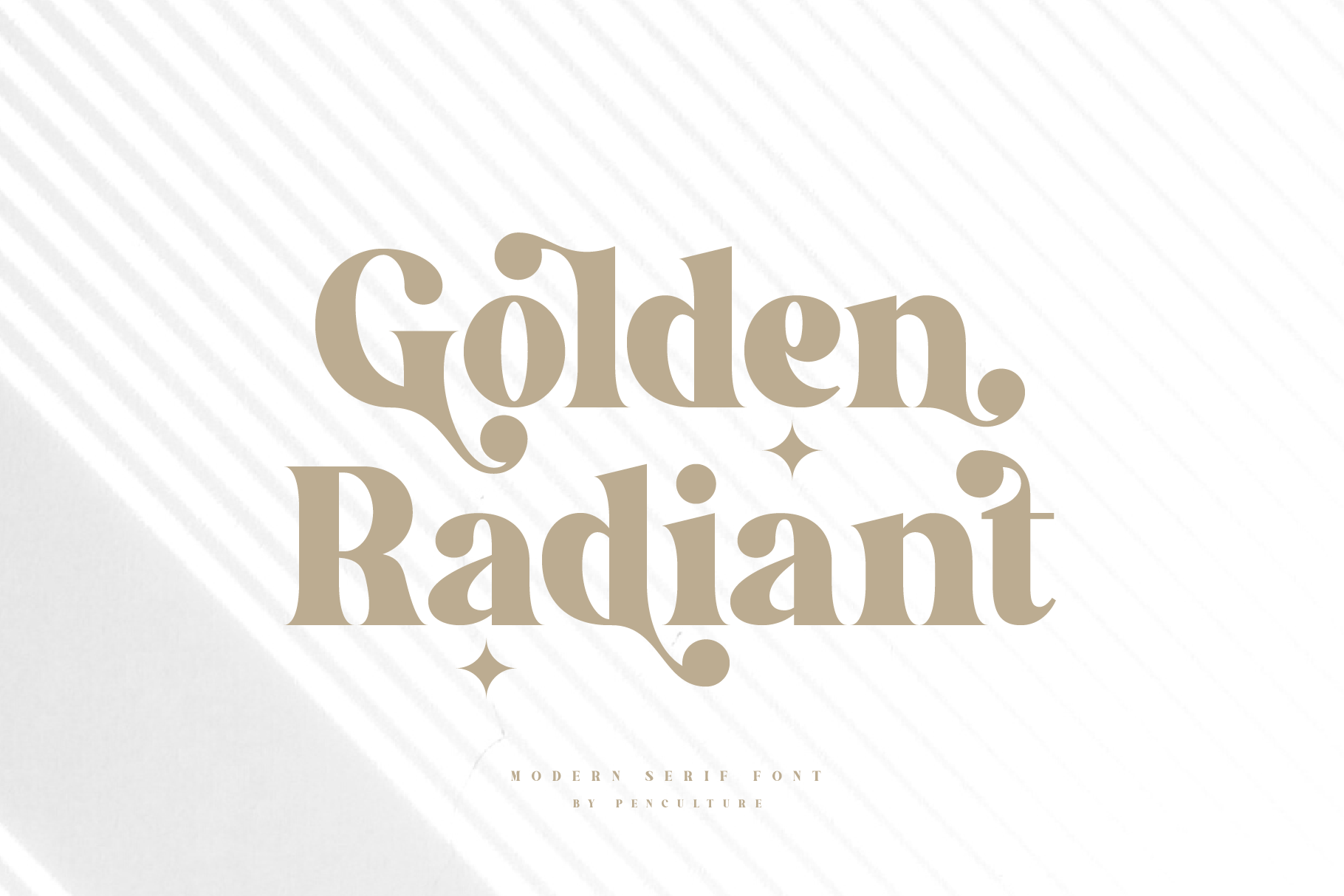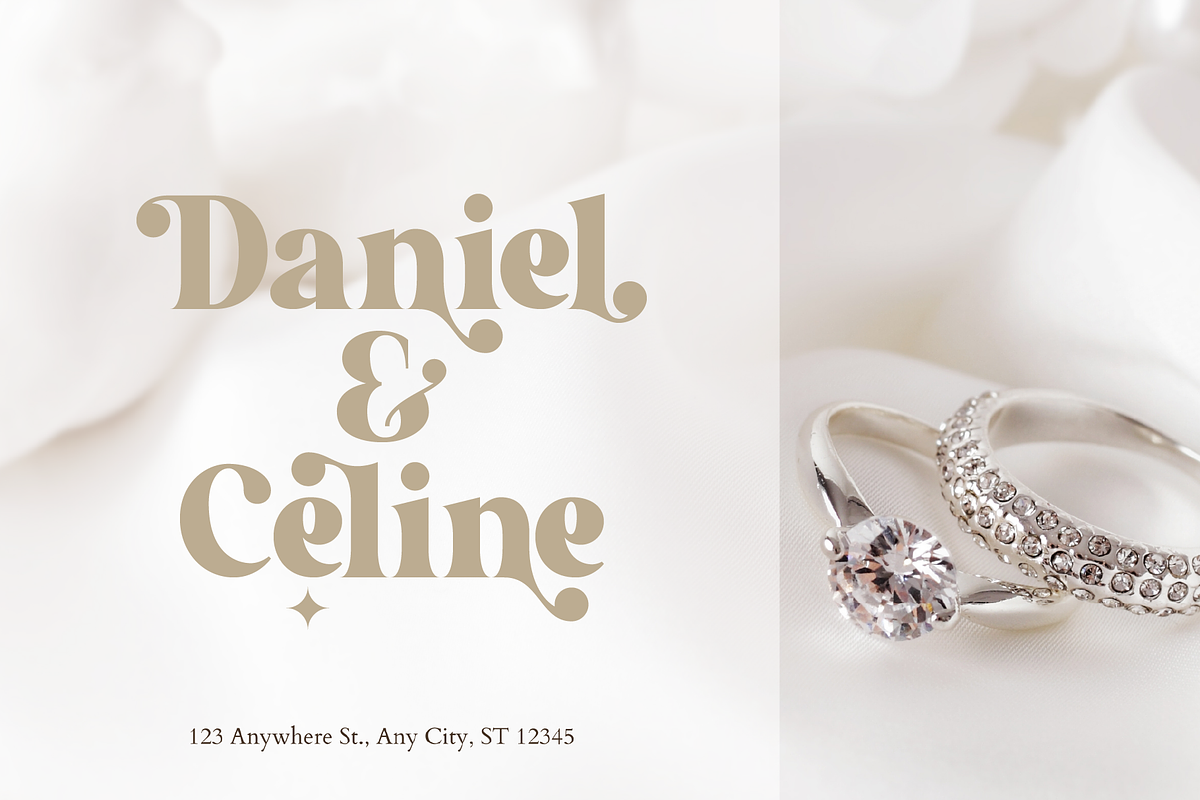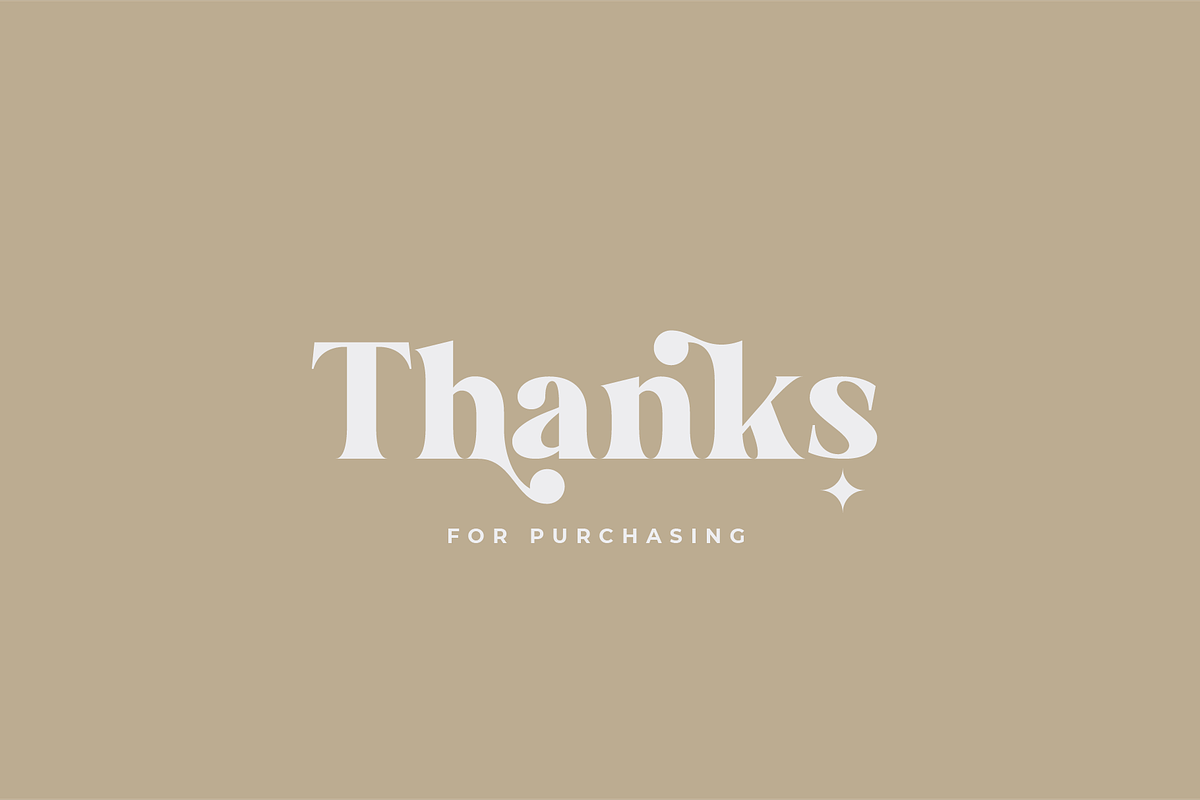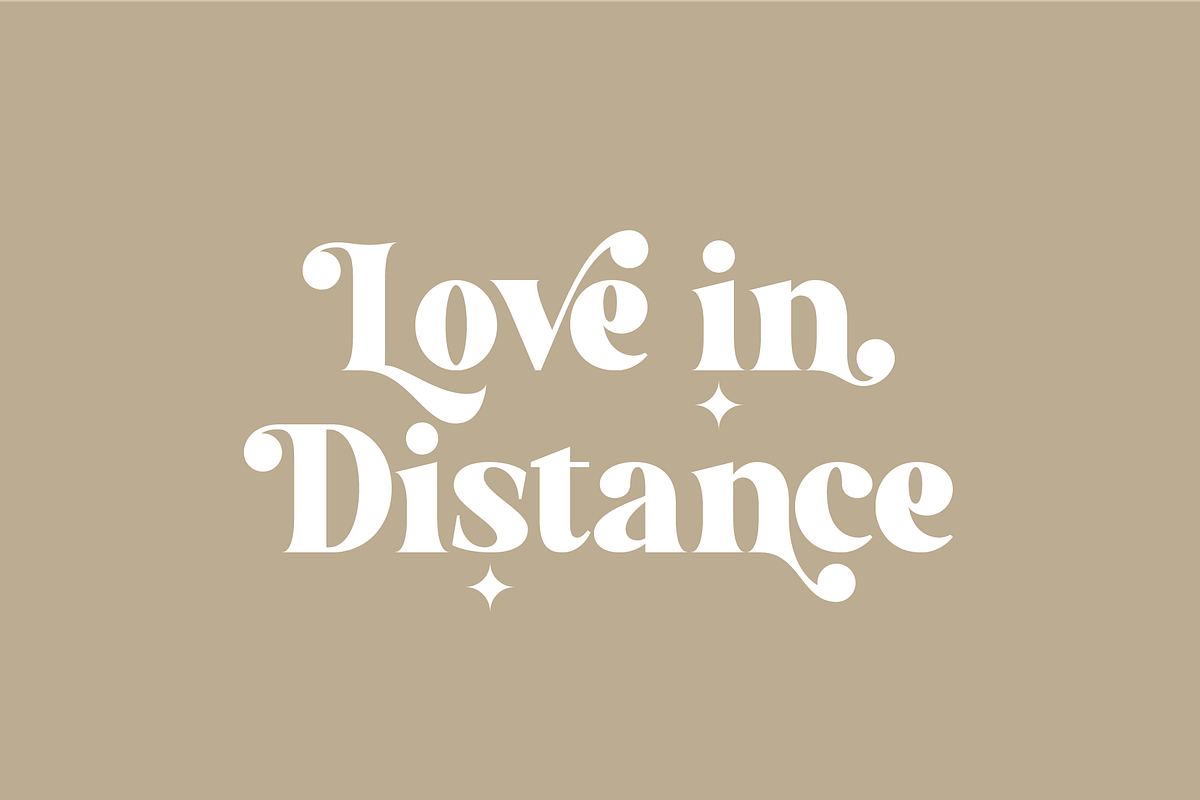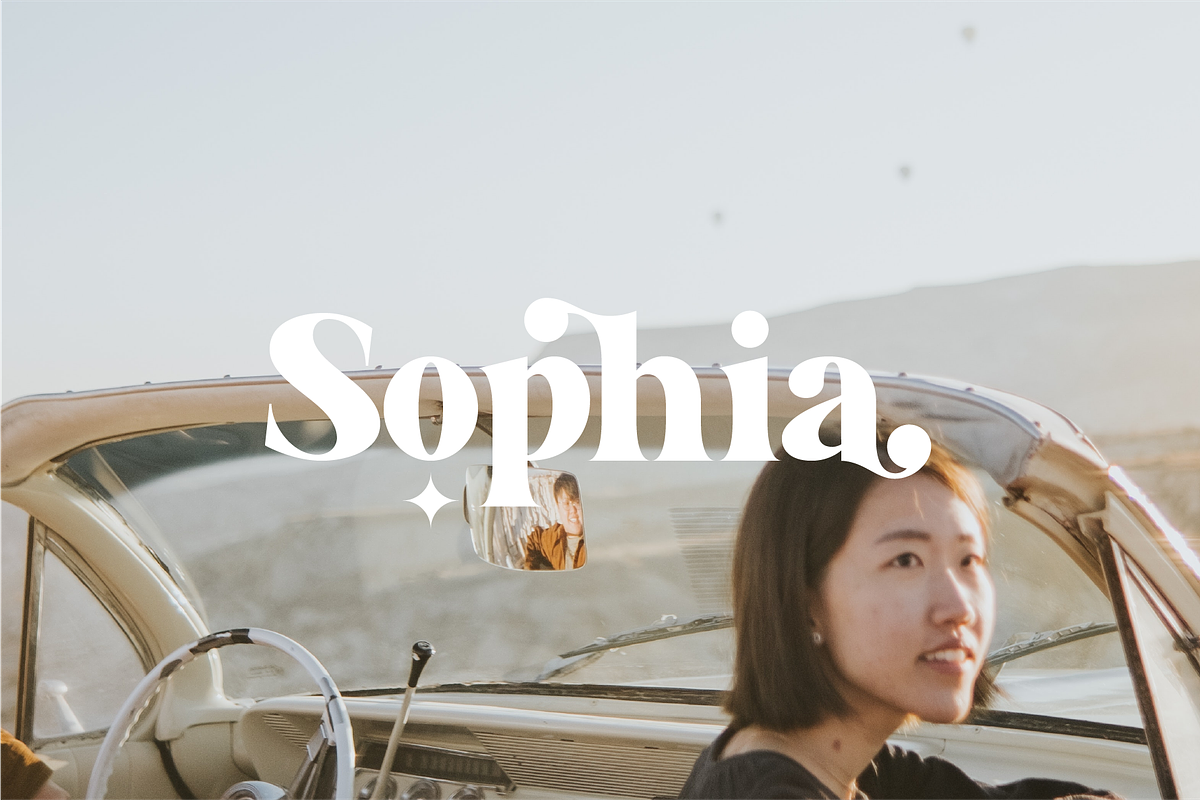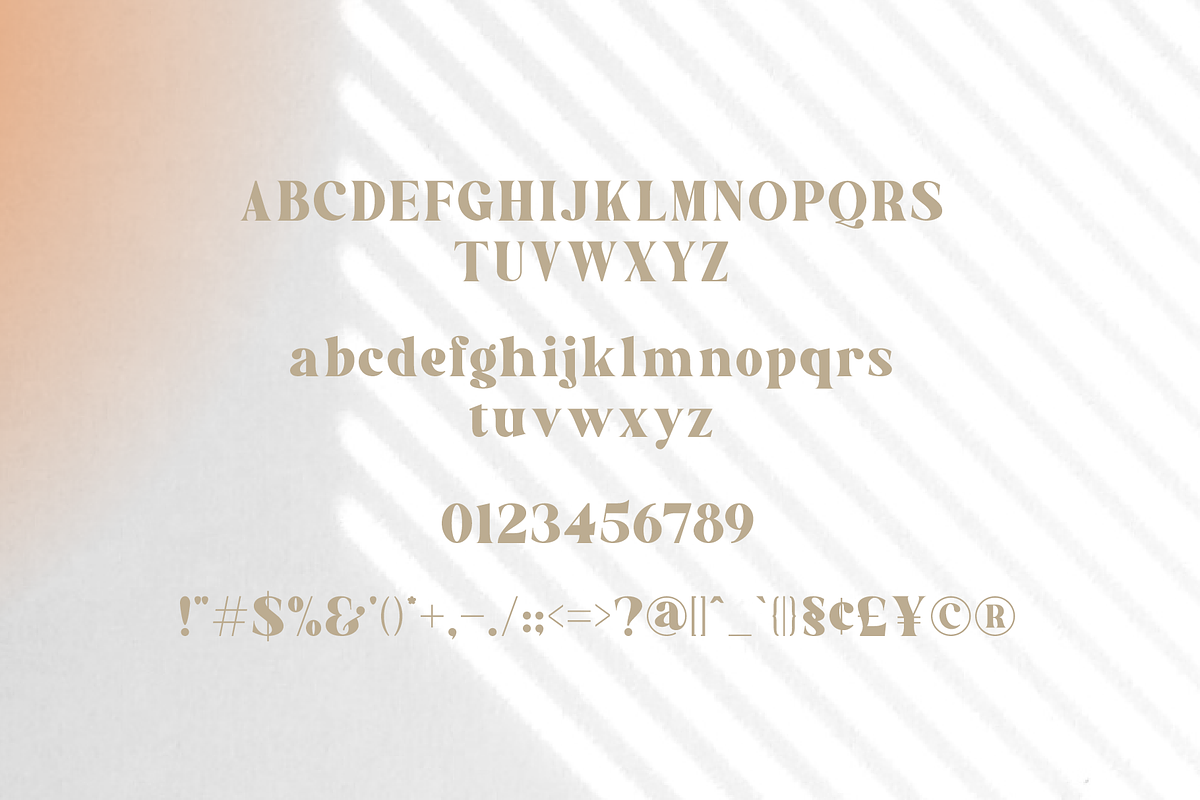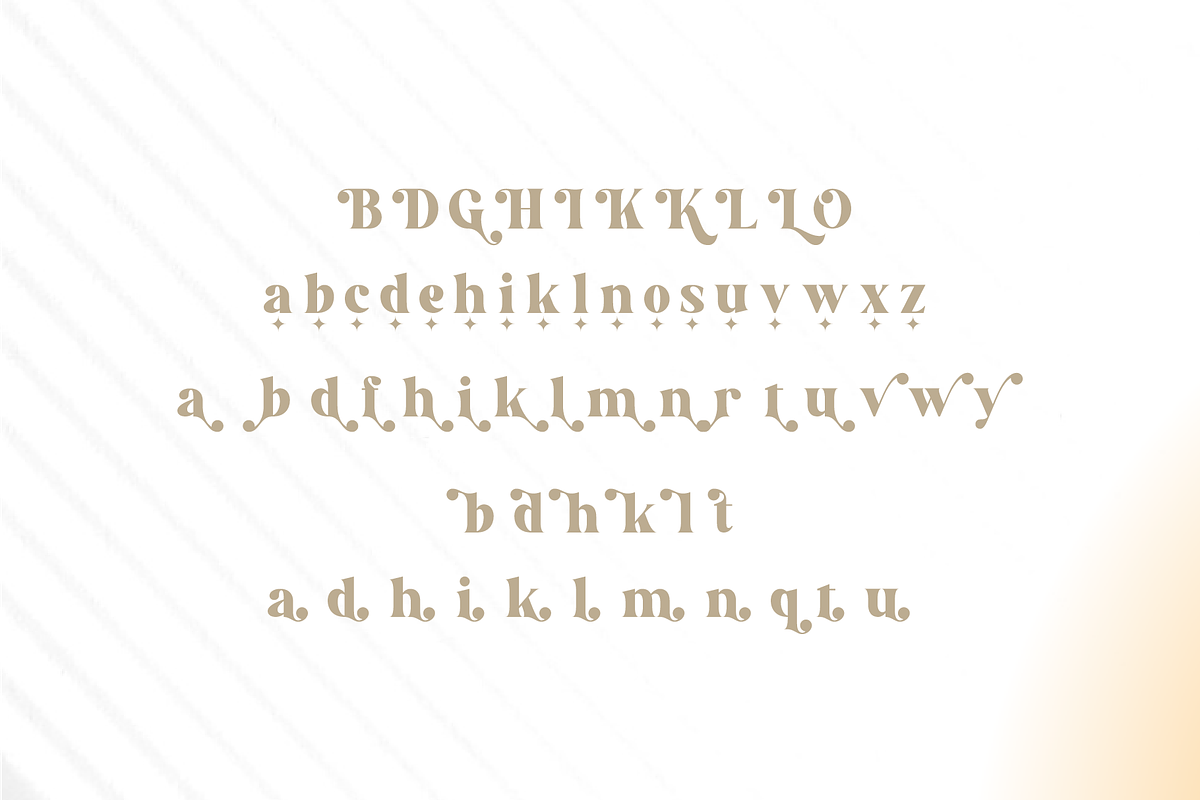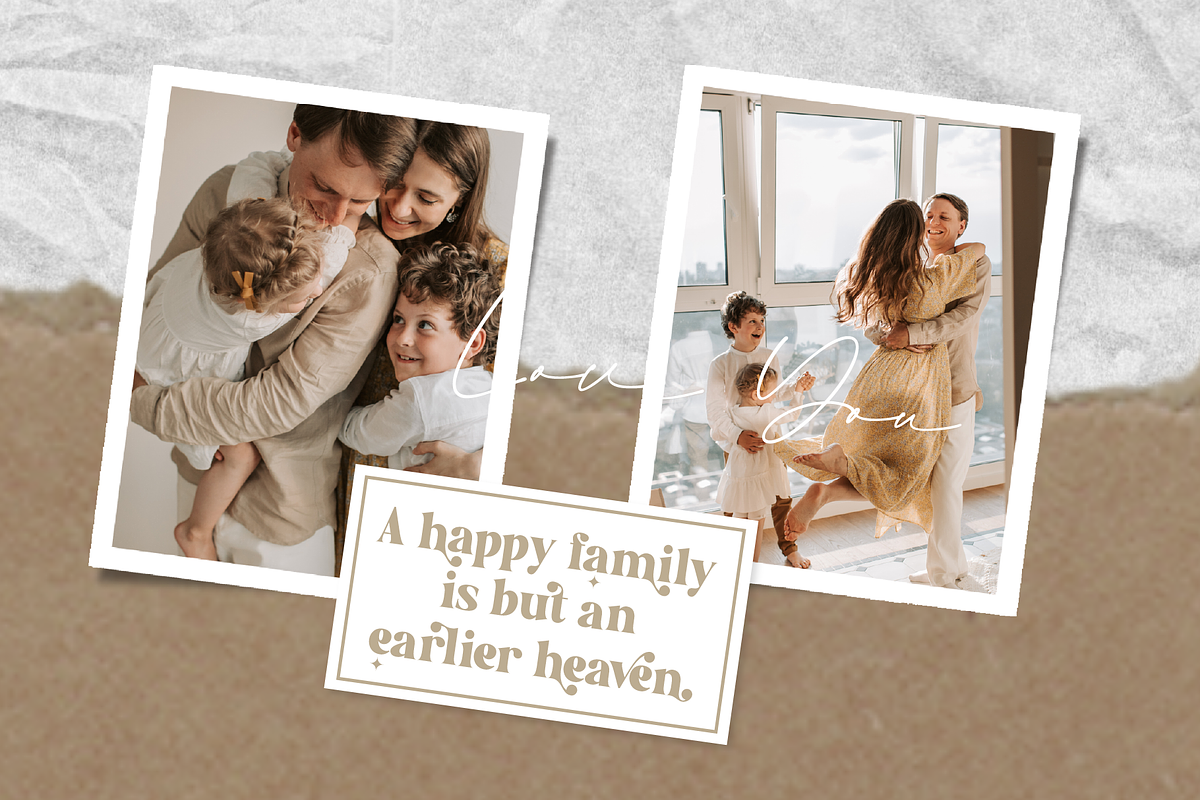
Golden Radiant - Modern Serif Font
Proudly present Golden Radiant - Modern Serif Font
Golden radiant is a modern serif font with an elegant curve in each letter and also alternates. This font perfect for all kinds of design projects such as branding, logo design, magazine, poster, invitation and many more.
This font come with elegant uppercase and lowercase letter, number and punctuation, 60 elegant alternate. This font is PUA Encoded and multilingual support.